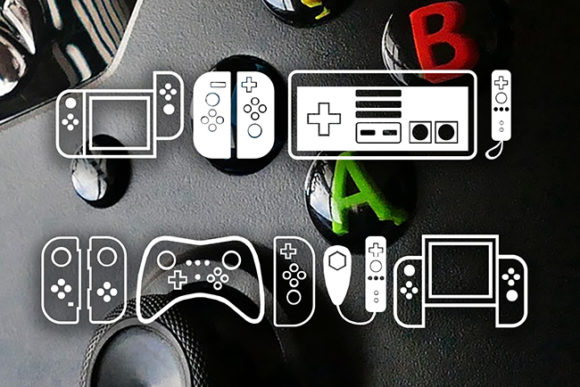
About Controllers Font
Controllers is an awesome dingbat font that features a collection of various Nintendo gaming console icons. This font is a must-have for any gaming enthusiast or designer looking to incorporate gaming elements into their projects.
With Controllers, you have access to a wide range of Nintendo gaming console icons, allowing you to add a touch of nostalgia and authenticity to your designs. The icons represent popular Nintendo consoles, such as the classic NES, Super Nintendo, Nintendo 64, GameCube, Wii, and more. Each icon is meticulously designed to capture the unique characteristics and aesthetics of these iconic gaming devices.
These console icons can be used in a variety of ways to enhance your designs. Whether you’re creating gaming-themed posters, website graphics, game covers, or social media content, the Controllers dingbat font provides you with a convenient and versatile toolset. You can use the icons individually or combine them to create custom compositions that reflect your love for Nintendo gaming.
The benefit of using a dingbat font like Controllers is that each icon corresponds to a specific keyboard character. This makes it easy to access and insert the desired icon into your text or design software. You can simply type the corresponding character to add the specific console icon to your project.
Whether you’re designing for gaming events, creating gaming-related merchandise, or simply want to express your passion for Nintendo gaming in your personal projects, Controllers offers a fun and visually appealing solution. It allows you to pay homage to the gaming consoles that have become an integral part of gaming history and culture.
In summary, Controllers is an awesome dingbat font that features various Nintendo gaming console icons. It’s a valuable resource for designers and gaming enthusiasts alike, providing a convenient way to incorporate Nintendo gaming elements into their projects. Let Controllers unleash your creativity and bring a touch of gaming nostalgia to your designs.